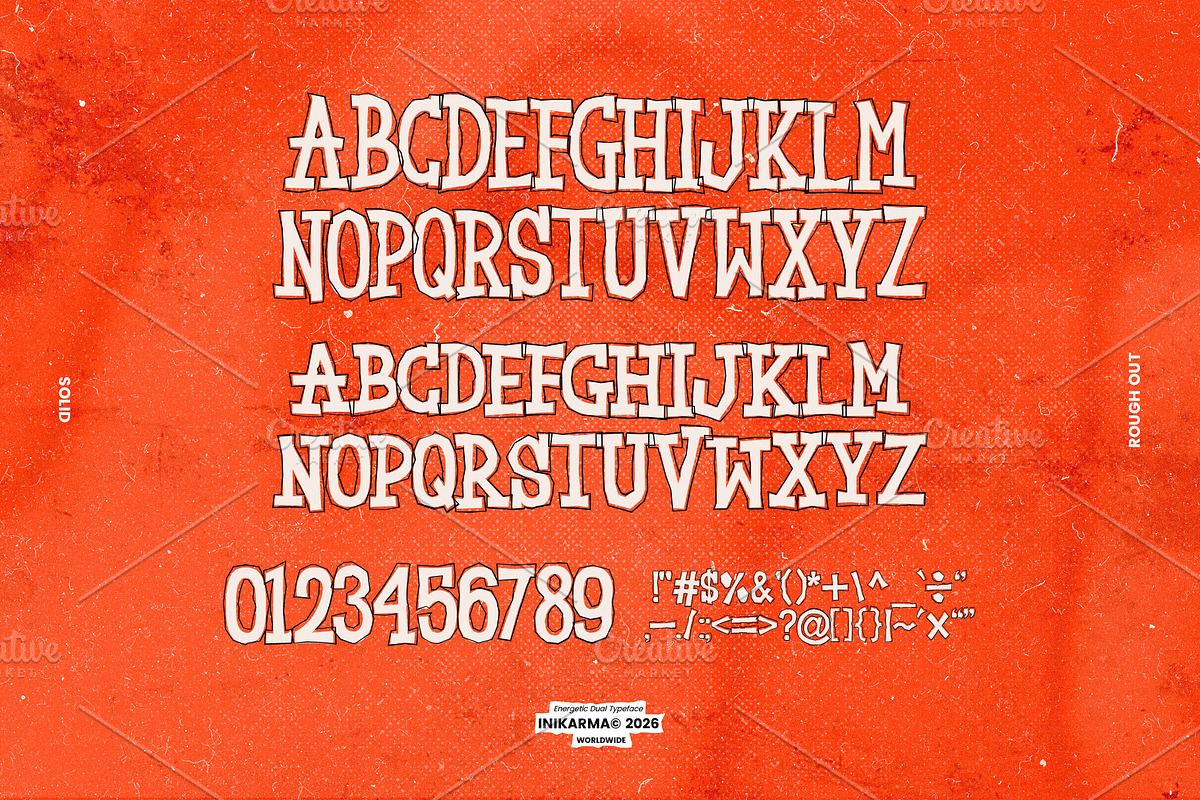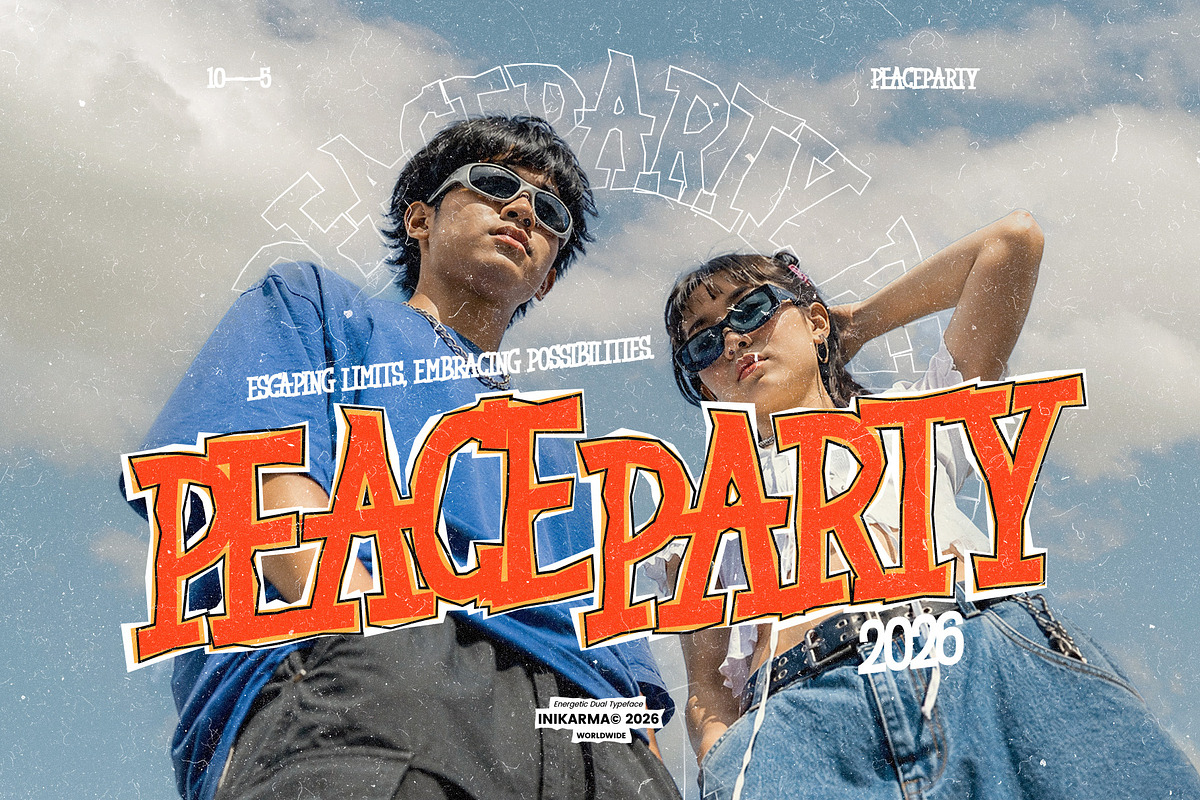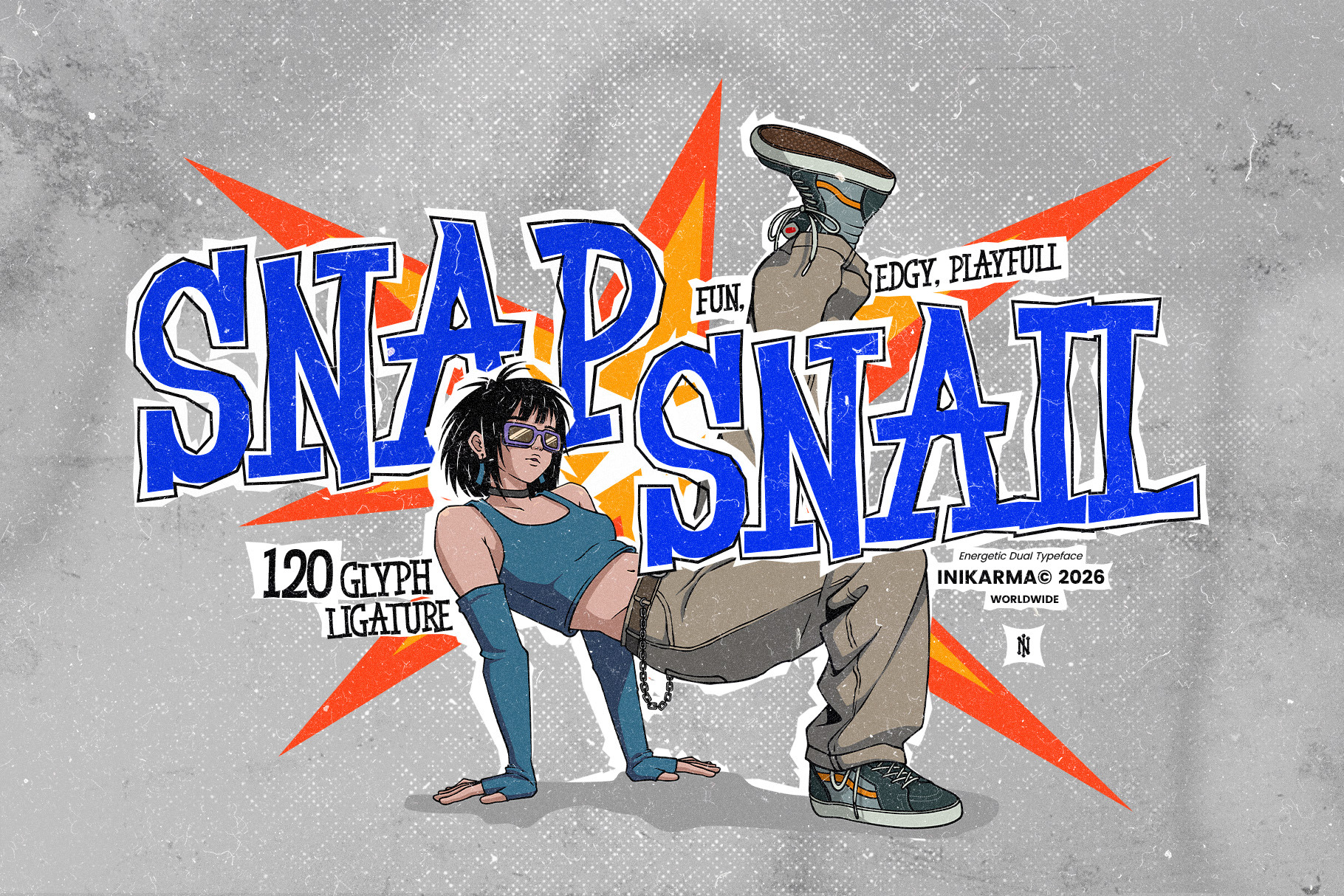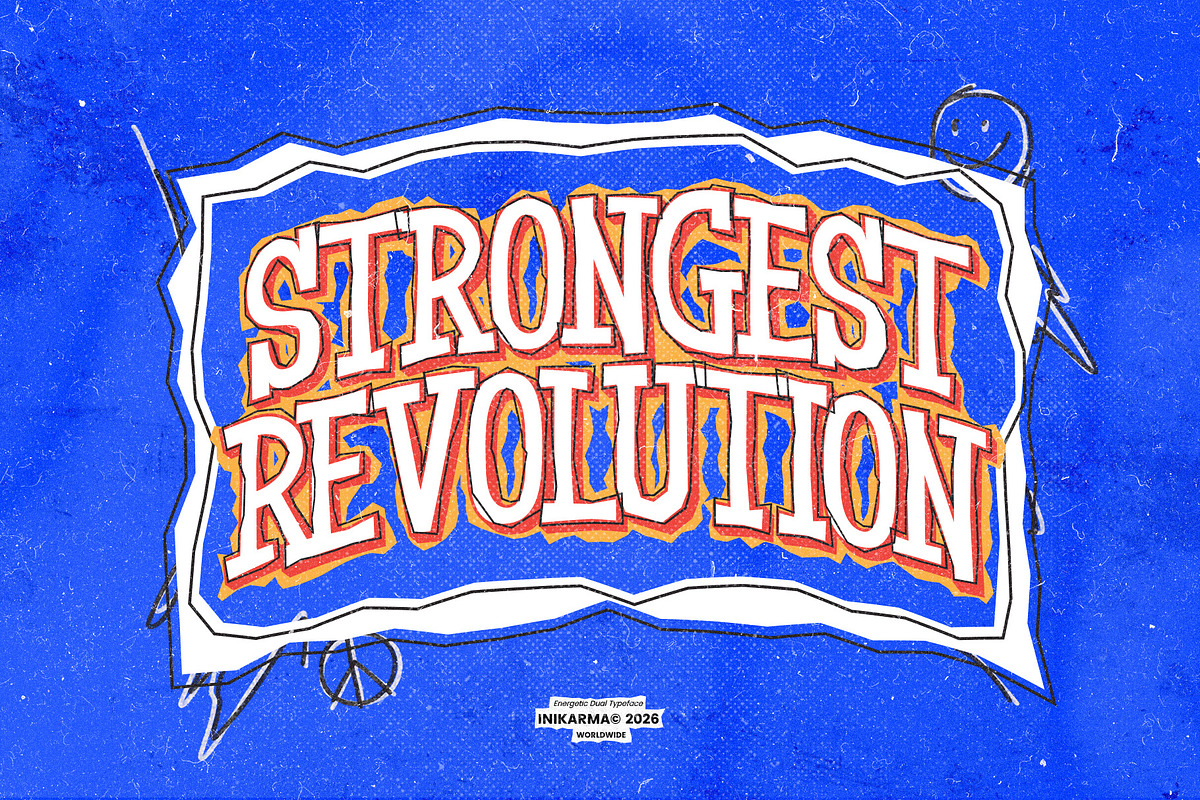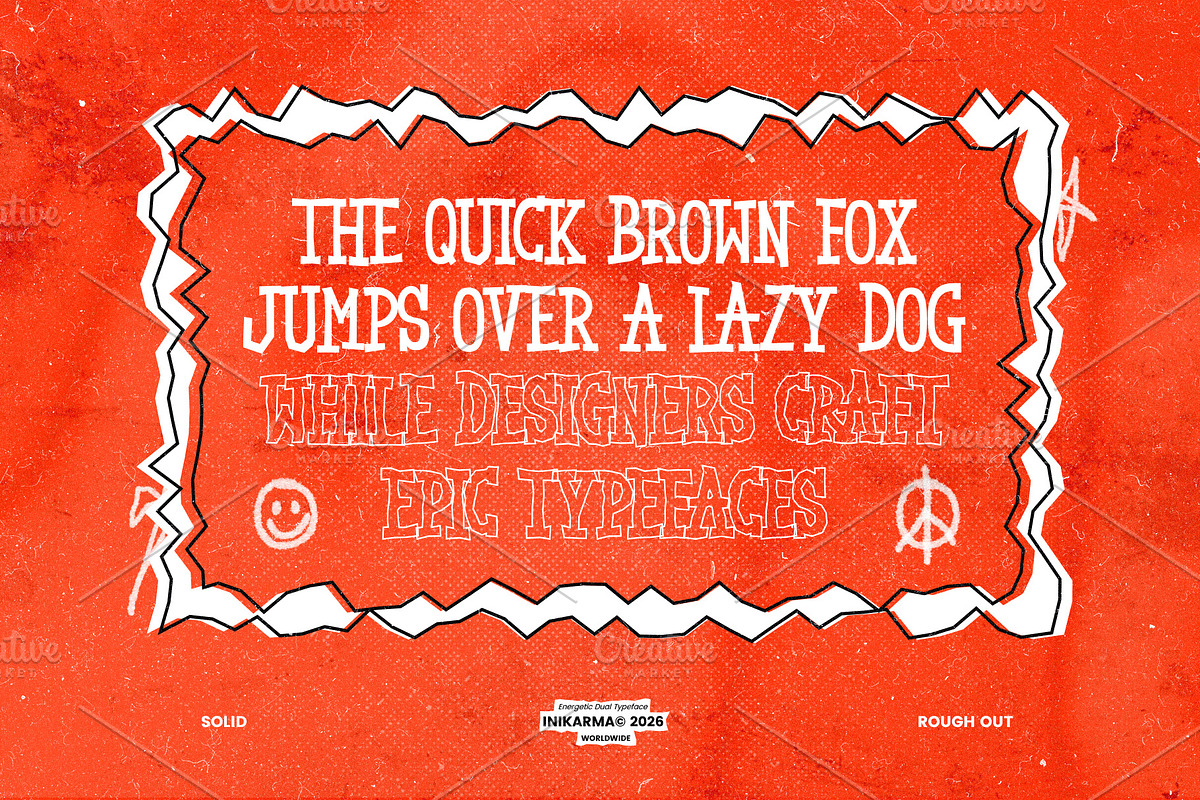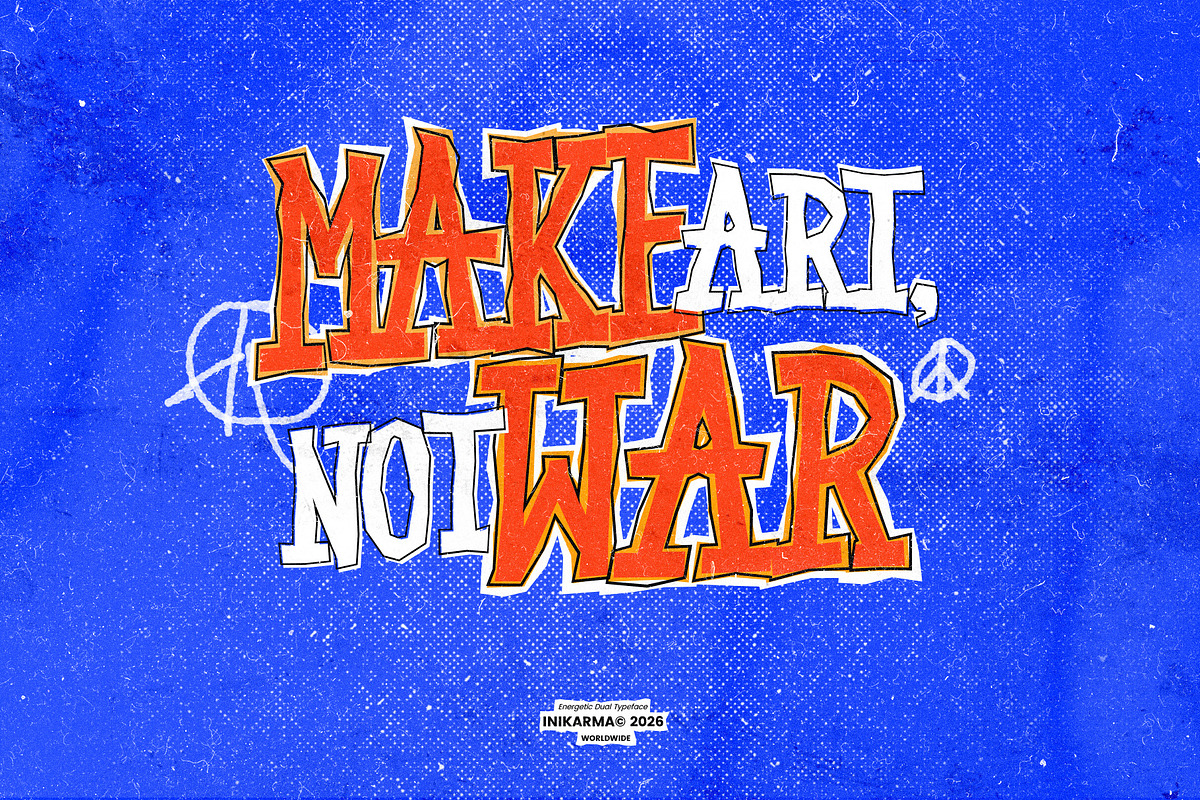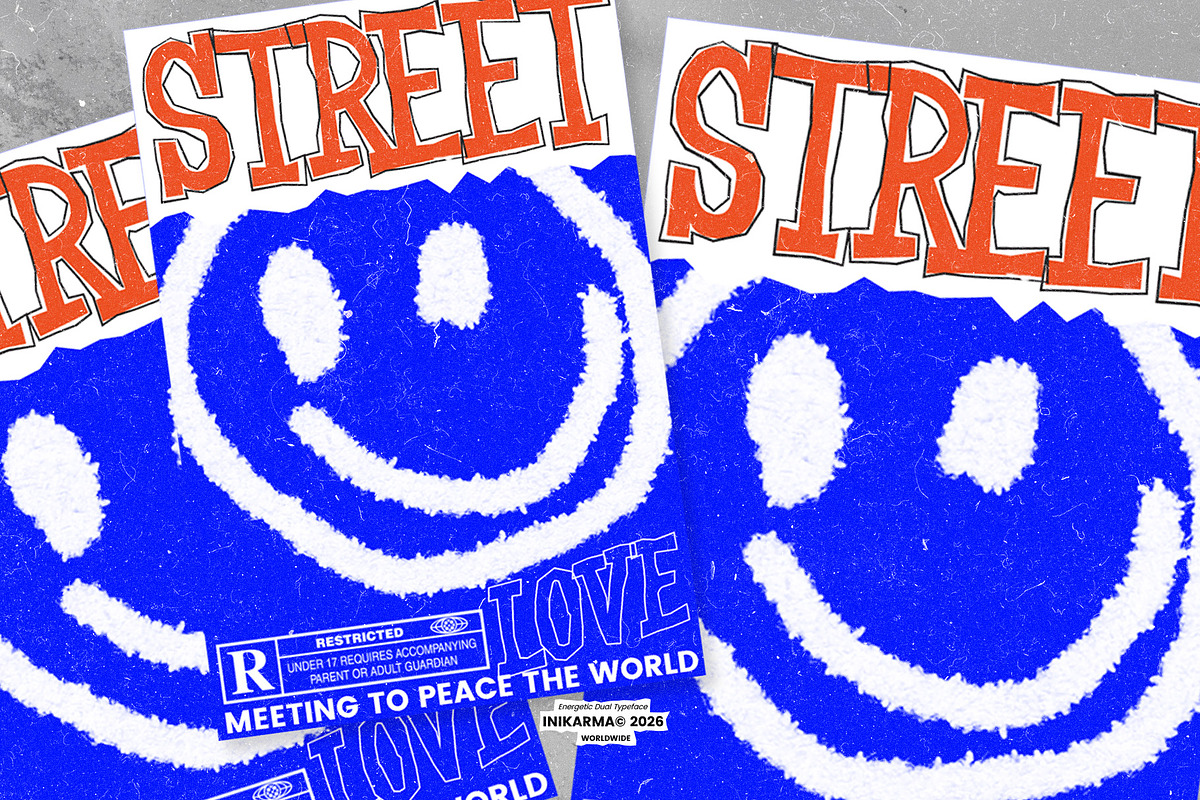
SNAP SNAIL - Display Font
Meet SNAP SNAIL, a bold display typeface that blends playful energy with handcrafted character. Inspired by DIY aesthetics, punk culture, vintage posters, and expressive street graphics, this font is designed to make every headline impossible to ignore.
Featuring two distinctive styles, Solid for clean, impactful typography and Rough Out for a raw, hand-drawn look SNAP SNAIL gives you the flexibility to create designs that feel loud, authentic, and full of personality. Its irregular letterforms and imperfect details bring a handcrafted charm that stands out in a world of perfect geometry.
Whether you're designing posters, album covers, branding, apparel, social media graphics, packaging, or editorial layouts, Inikarma delivers an energetic visual voice that captures attention and leaves a lasting impression.
Bring bold ideas to life with a typeface that celebrates creativity, expression, and imperfect beauty.
Ligature